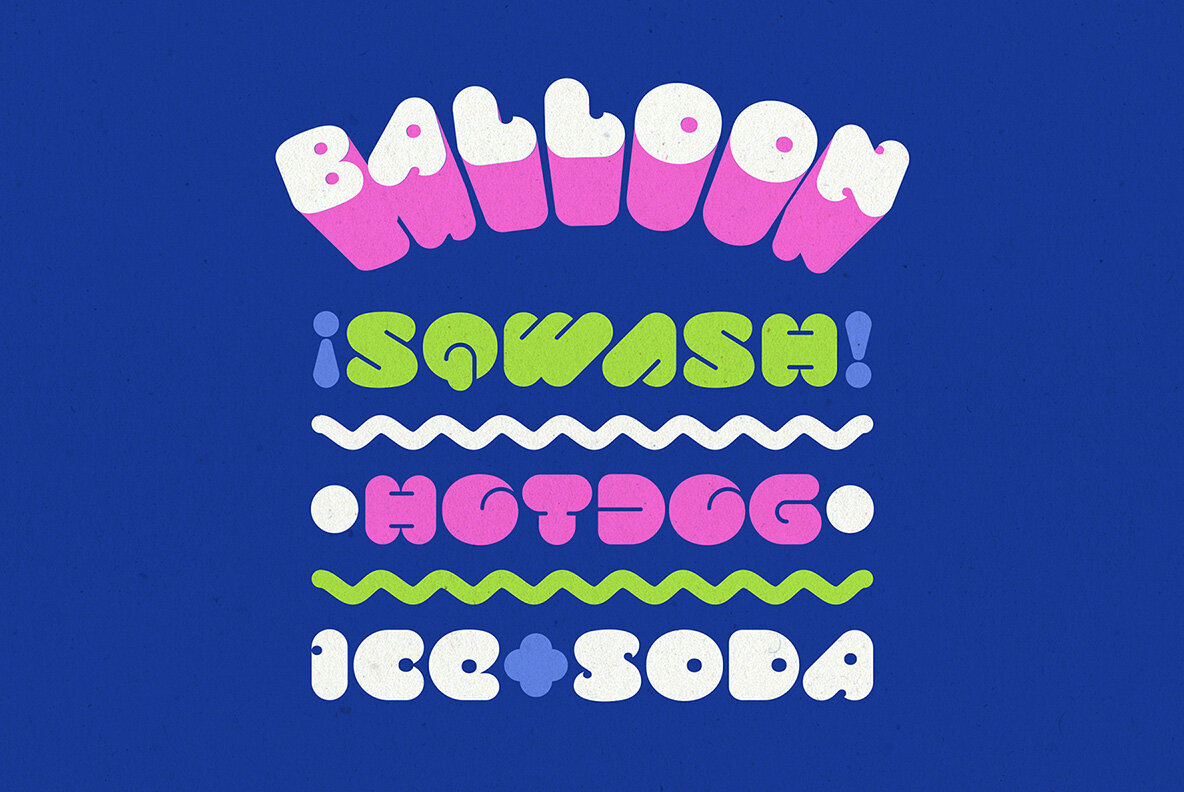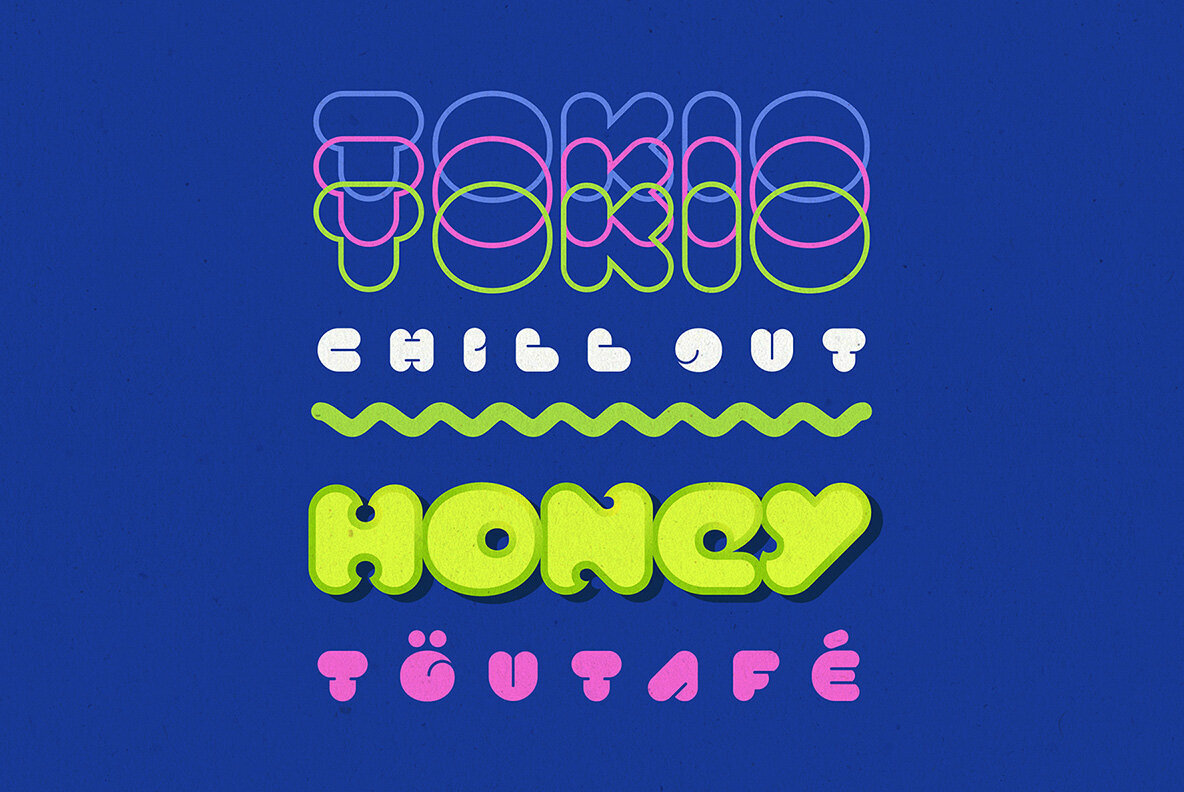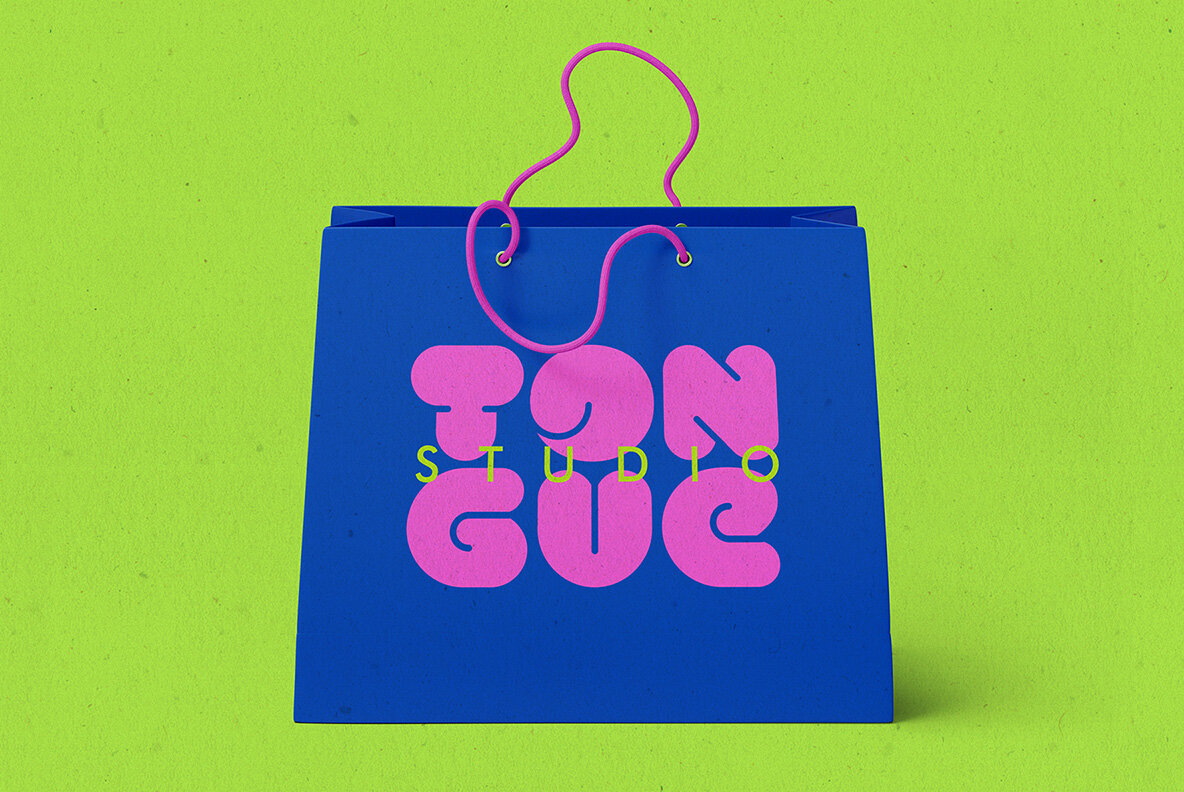
Diskopia Font
Diskopia emerges as a versatile typeface crafted with the nuanced demands of modern logo and branding design in mind. With three distinct styles—flat, dots, and lines—it provides designers with a flexible toolkit to breathe life into their creative visions, offering basic support for Latin languages. Diskopia's unique feature allows users to switch the direction of slanted letters just by toggling between uppercase and lowercase, making it an ideal choice for those seeking variation and control within their typography selections. Effortlessly integrate some alternates into your projects to inject diversity without sacrificing cohesion.Diskopia: Dynamic Typeface for Logo and Branding Projects